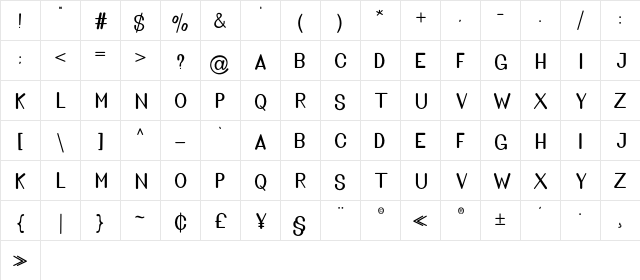
Golden Bridge Sans Regular
Design Context for Golden Bridge Sans Typeface
Golden Bridge Sans is a composed and adaptable typeface that performs quietly and consistently across a wide range of design contexts.